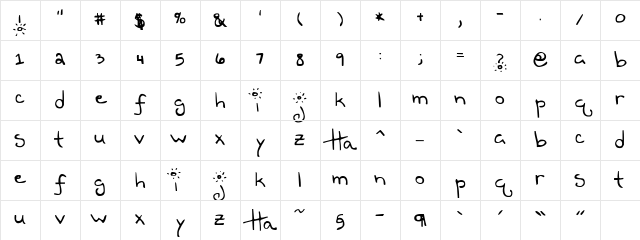
Complete Teen Dreem Magazeen Regular glyph index. Displaying only characters natively supported by Teen Dreem Magazeen Regular font.
Teen Dreem Magazeen is a composed and adaptable typeface that performs quietly and consistently across a wide range of design contexts.